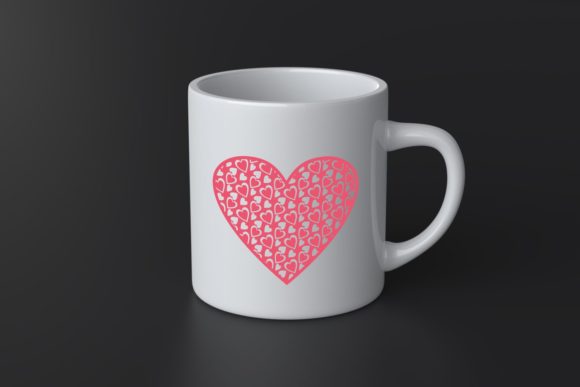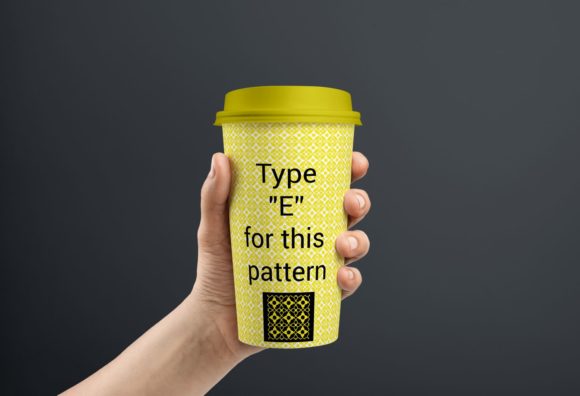
The Seamless Patterns Dingbat font contains 62 repeatable seamless patterns – just type A-Z or a-z letters or numbers 0-9 on your keyboard.
Seamless Pattern is great for product packaging, cards or wedding invitations.